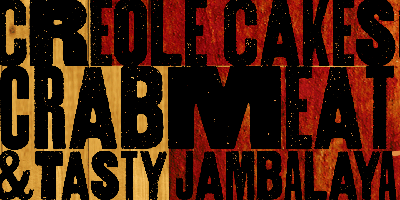
PL Trophy Free Download
PL Trophy Font Free Download
PL Trophy Font Free Download delivers championship typography that combines competitive excellence with contemporary functionality for victory-focused design applications. This commercial font requires purchase for business use, but you can download it for free for testing purposes to evaluate its distinctive winning characteristics in your creative projects.
PL Trophy Font excels across diverse design applications including sports team branding, championship event marketing, award ceremony communications, competitive gaming interfaces, athletic achievement materials, trophy shop signage, victory celebration promotions, and excellence recognition publications. Its triumphant character makes it particularly effective for projects requiring competitive authority while maintaining professional sophistication, ensuring your designs convey winning spirit and championship quality across both digital platforms and victory celebration print materials.
What makes PL Trophy Font truly exciting is its innovative approach to typography that perfectly captures the essence of championship achievement and competitive excellence through carefully engineered letterforms. The font features precisely crafted characters that incorporate subtle trophy elements and victory proportions that create striking motivational impact while preserving optimal communication effectiveness. Its distinctive character construction combines competitive inspiration with modern functionality, creating text that feels both victoriously powerful and professionally reliable. The font's optimized spacing and triumphant character relationships ensure superior performance across various championship applications while maintaining the characteristic excellence that defines its trophy personality.
PL Trophy Font presents a comprehensive type family designed to support diverse competitive and achievement design requirements. The family typically includes light, regular, medium, bold, and black weights, along with corresponding italic variations that provide complete flexibility for victory typography compositions. Many versions feature extended character sets with trophy symbols, competitive ornaments, and specialized glyphs that enhance authentic championship aesthetic applications.
The PL Trophy Font Free Download represents exceptional value for designers working on sports-focused and achievement projects across multiple sectors. Whether developing championship team identity, creating award ceremony materials, designing competitive gaming communications, or producing victory celebration content, this font delivers consistent excellence and memorable trophy appeal. Its winning characteristics make it particularly effective for industries including competitive sports, gaming tournaments, achievement recognition, and excellence awards sectors seeking to communicate championship quality and competitive success.
For optimal results, PL Trophy Font combines powerfully with gold accent colors and victory design elements that reinforce its championship message. Its triumphant presence excels in headline applications while maintaining excellent performance in competitive communication contexts. The font's championship sophistication and trophy appeal make it an invaluable tool for creating victorious communications that resonate with audiences pursuing excellence and competitive achievement.